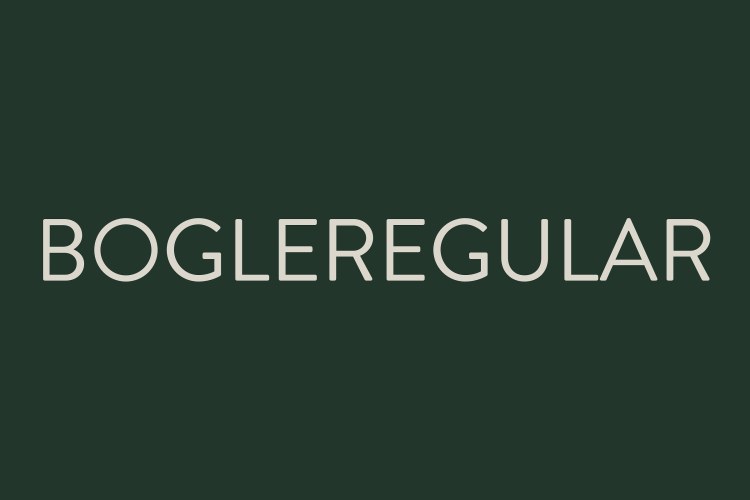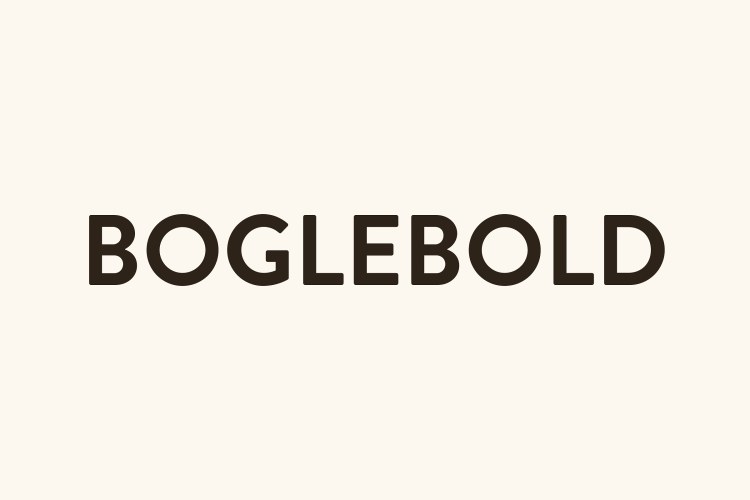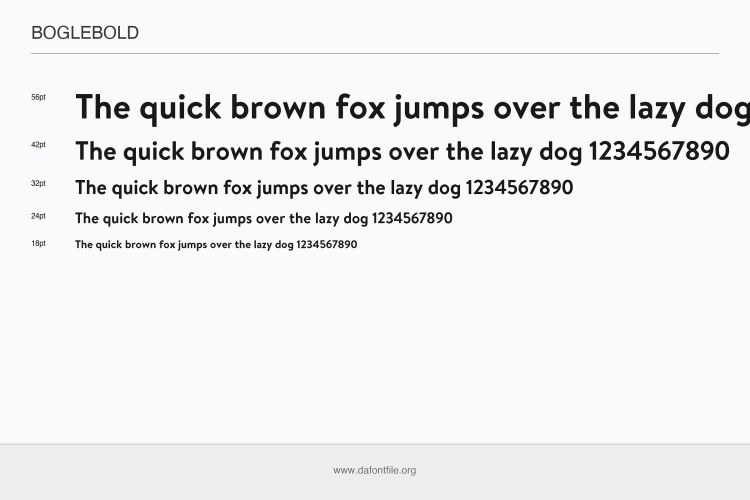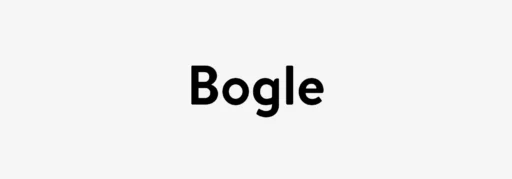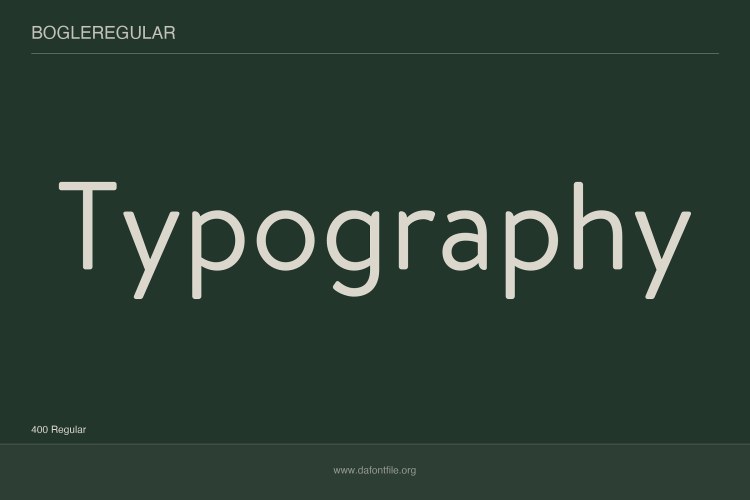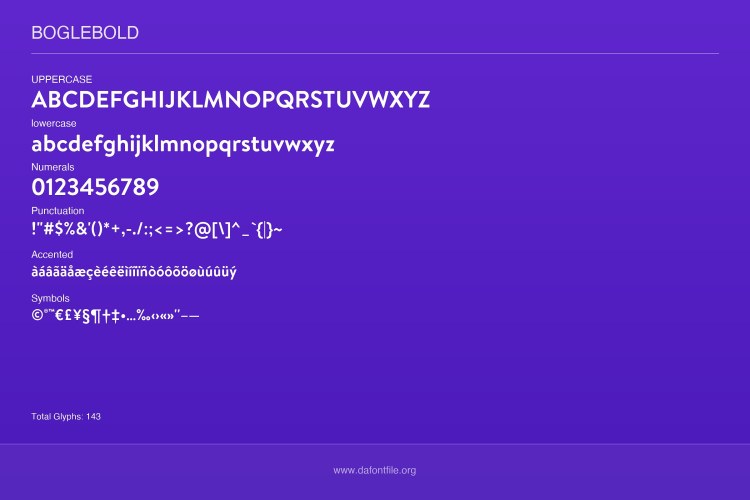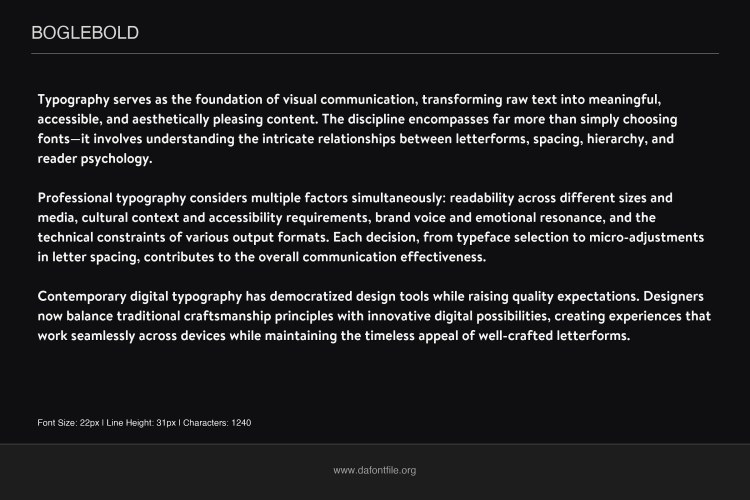
Bogle Font Family
The Bogle font is a clean and modern sans serif typeface with simple, rounded letterforms. Its straightforward design ensures readability while maintaining a friendly and approachable feel. Ideal for branding, advertising, and user interfaces, it delivers a professional yet welcoming look. This font works well in both digital and print projects where clarity and balance are important.
Where Bogle Font Family works best
Bogle Font Family stays legible at small sizes, which makes it a strong choice for navigation, buttons and dashboards in web design and app interfaces.
Clean sans serifs like Bogle Font Family are the default language of SaaS, fintech and product branding.
What is Bogle Font Family good for?
Bogle Font Family is a Sans Serif Fonts typeface tagged Clean, Friendly, Modern, Readable. It works well for headlines, logos, posters, social media graphics and branding projects that need a distinctive sans serif fonts look.